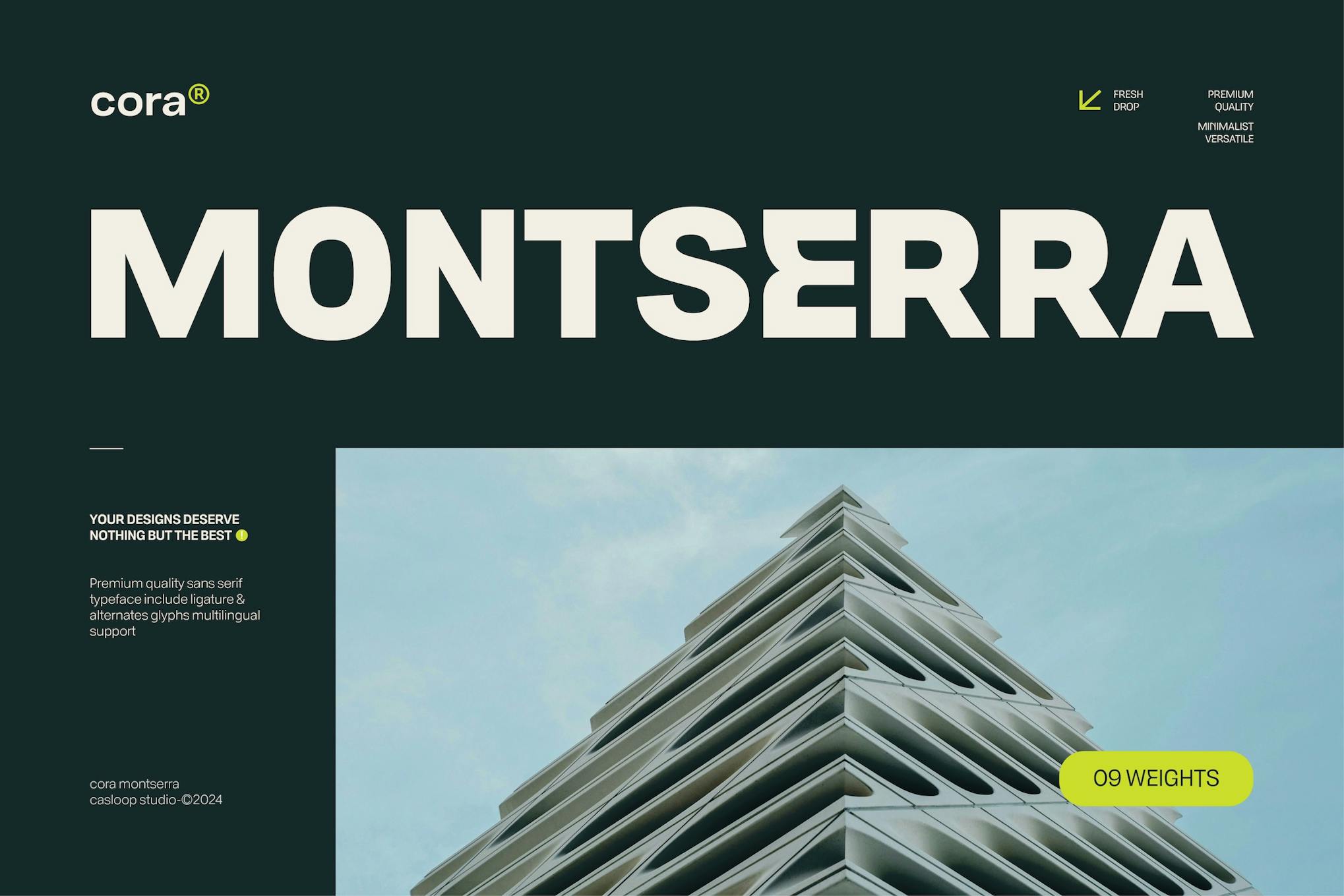
Cora Montserra - Roman Variable Gen Z Sans Serif
Perfect for branding, websites, digital ads, editorial layouts, social media content, and UI/UX design.
The Cora Montserra - Roman Variable Gen Z Sans Serif Font excites designers with its clean, modern aesthetic tailored to the vibrant and fast-paced style of Gen Z, combined with the flexibility of variable font technology.
Font families: Cora Montserra Variable Font with multiple weights and styles, including Roman and Italic versions.
The Cora Montserra - Roman Variable Gen Z Sans Serif Font Free Download is a highly versatile typeface designed to bring clarity, style, and adaptability to your projects. Its sleek, geometric forms ensure excellent readability across devices and platforms, while its variable font capabilities allow smooth adjustments in weight and width, perfect for dynamic design needs.
One of the standout features of Cora Montserra - Roman Variable Gen Z Sans Serif Font is its ability to adapt fluidly to different design contexts — from bold headlines to subtle body text — making it ideal for brands targeting younger, trend-conscious audiences.
In branding, Cora Montserra communicates modernity, freshness, and approachability. It pairs well with minimalist layouts, vibrant color schemes, and interactive digital elements, helping brands connect authentically with Gen Z consumers.
For digital projects, this font enhances website typography, app interfaces, social media posts, and digital marketing materials with crisp, clean lines and smooth transitions. Its variable font nature also optimizes performance by reducing file sizes without sacrificing style.